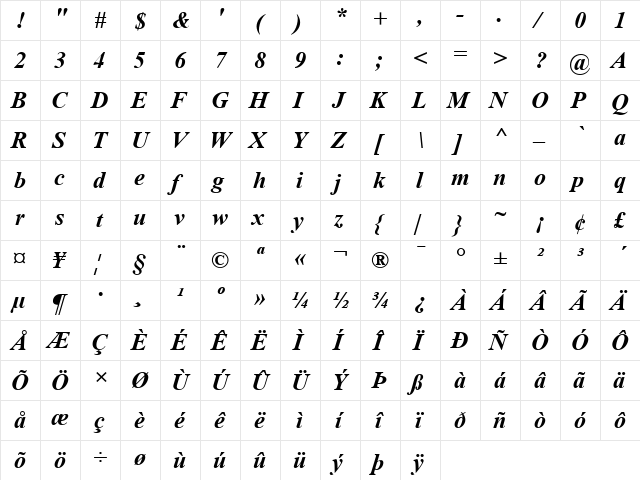
Times New Roman PS ItalicBold Font Preview
Design Context for Times New Roman PS Typeface
Times New Roman PS takes a measured approach to typography — its balanced proportions and neutral character make it a reliable workhorse for both digital and print work. Its italic angle brings a sense of urgency and motion to the letterforms. The heavy weight commands attention and anchors typographic hierarchies.
Pro Tip: Use Times New Roman PS for emphasis, pull quotes, and subheadings where its slanted energy can add rhythm to the layout.